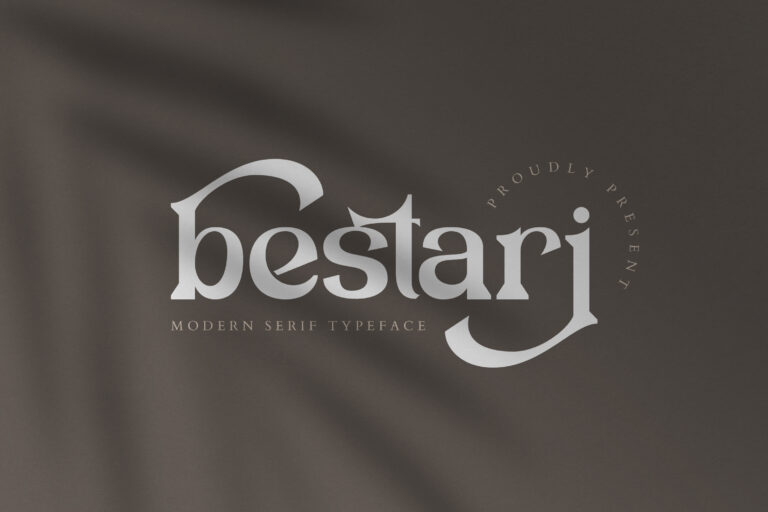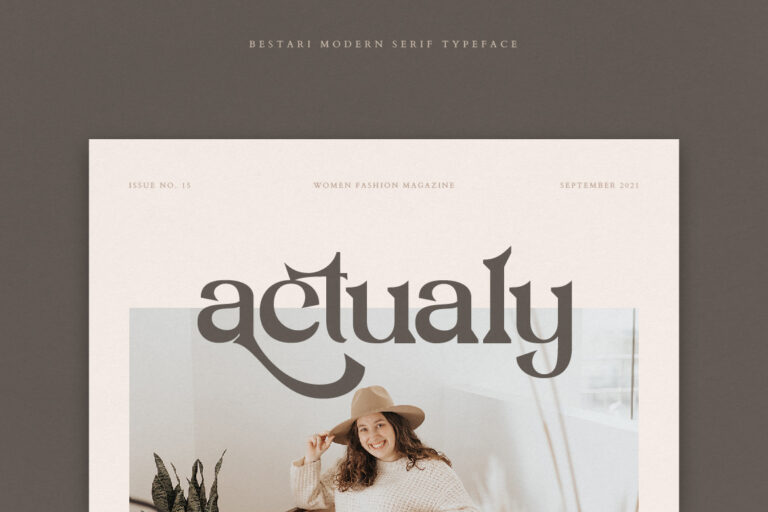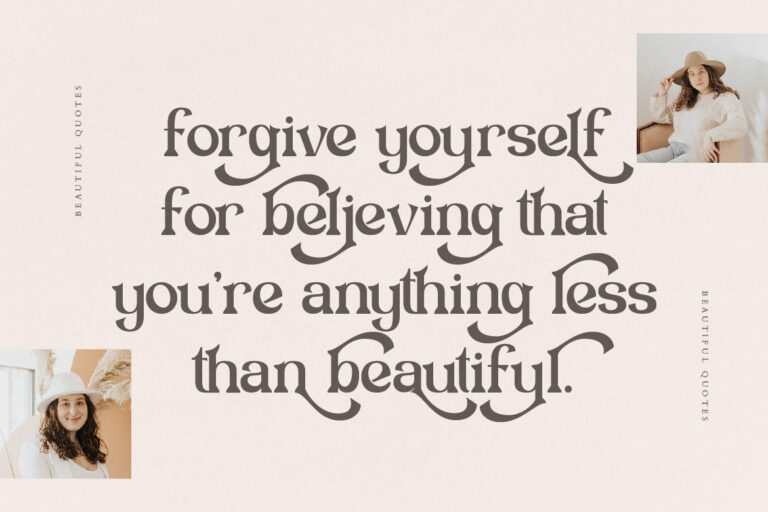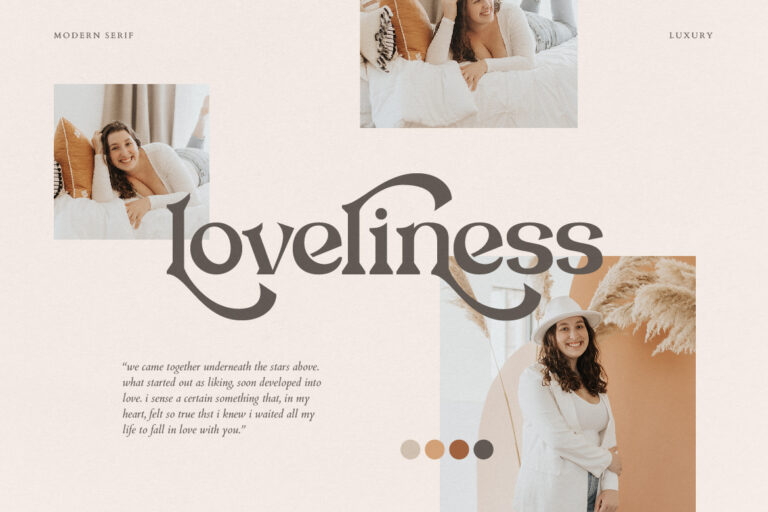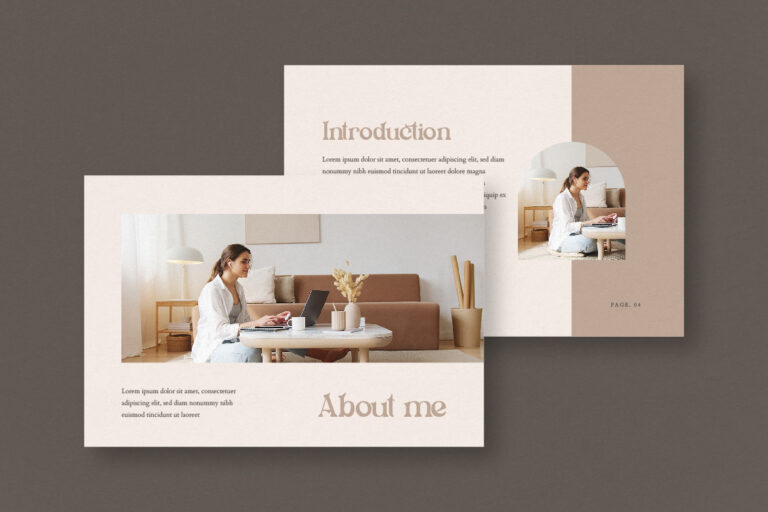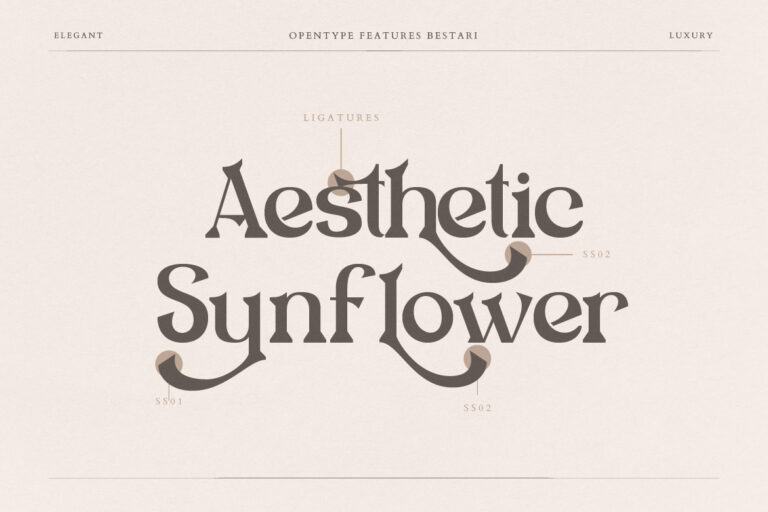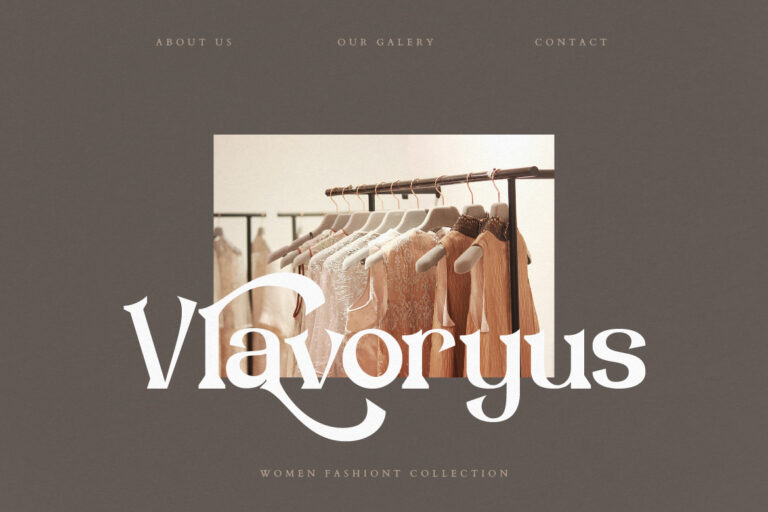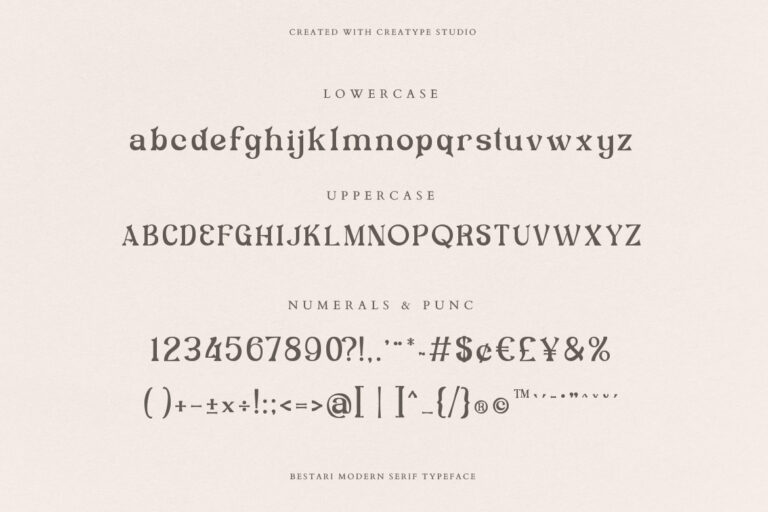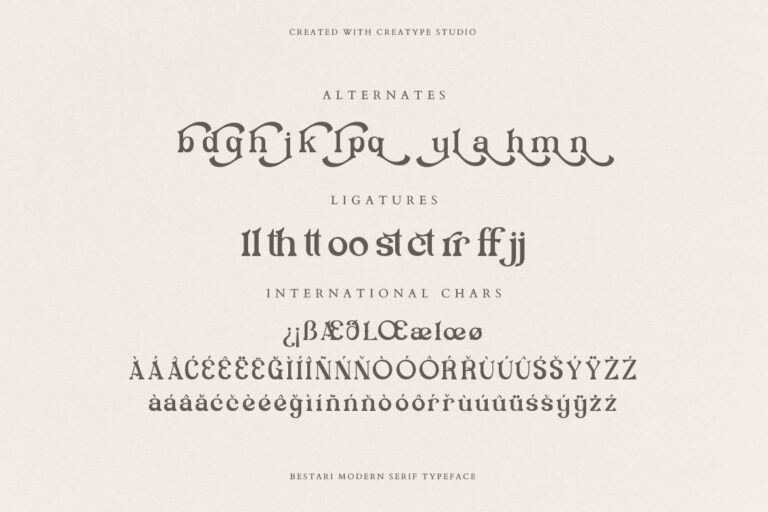
Bestari Decorative Serif
Bestari is a modern serif typeface built specifically for great-looking fonts. With its bold and unique shape, it makes this font look so elegant and modern.
Bestari is perfect for branding projects, logo, wedding designs, social media posts, advertisements, product packaging, product designs, label, photography, watermark, invitation, stationery and any projects that need handwriting taste.